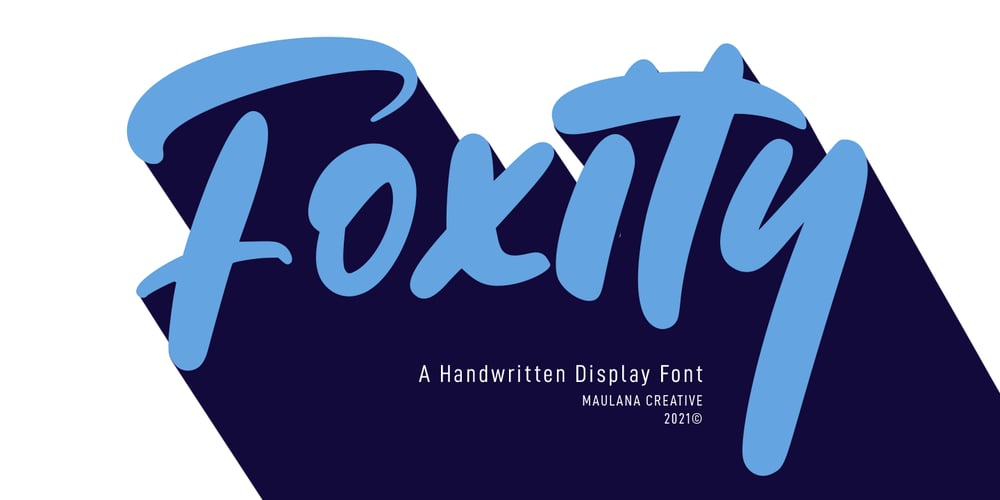
Foxity Font Family was designed by Gilang Maulana and published by Maulana Creative. Foxity contains 1 styles and family package options. Foxity is a casual handwritten font. With bold stroke, slant and fun character with a bit of ligatures. To give you an extra creative work. Foxity font support multilingual more than 100+ language. This font is good for logo design, Social media, Movie Titles, Books Titles, a short text even a long text letter and good for your secondary text font with sans or serif. Make a stunning work with Foxity font. Cheers, MaulanaCreative